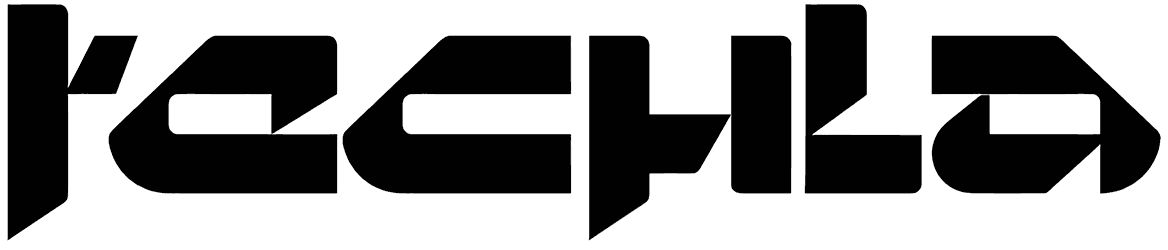
Techla Font
Let your words seem more complex with the special lettering style of Techla if you want to keep the audience focused but also impressed. Unlike most of the fonts out there, this one is just made of lowercase, but even so, this Y2K font is just as strong. So you wouldn’t even miss the capitals or the numbers. Once this tech font appears in your movie posters and video game logos, you can rest assured that all the attention is yours.